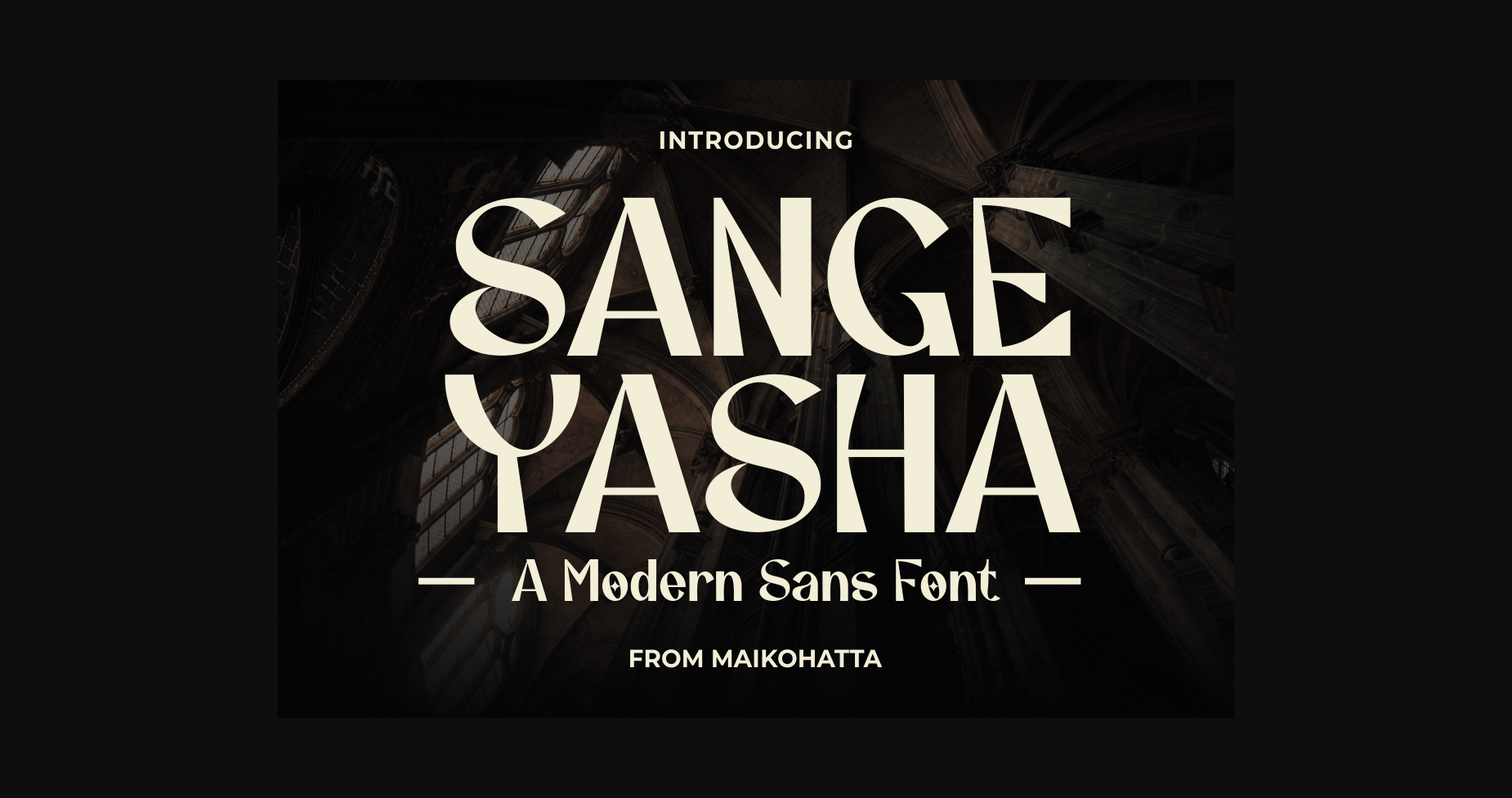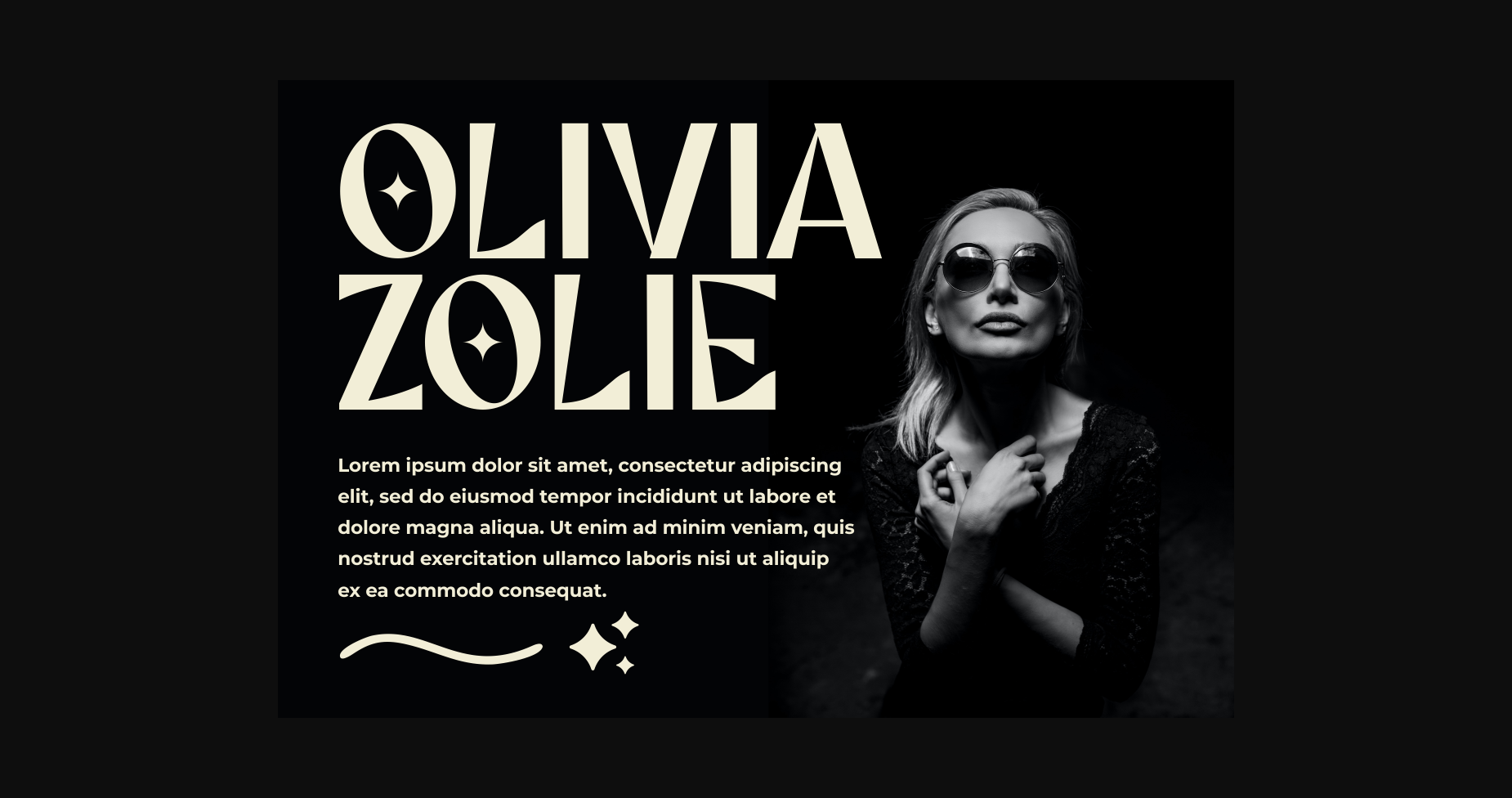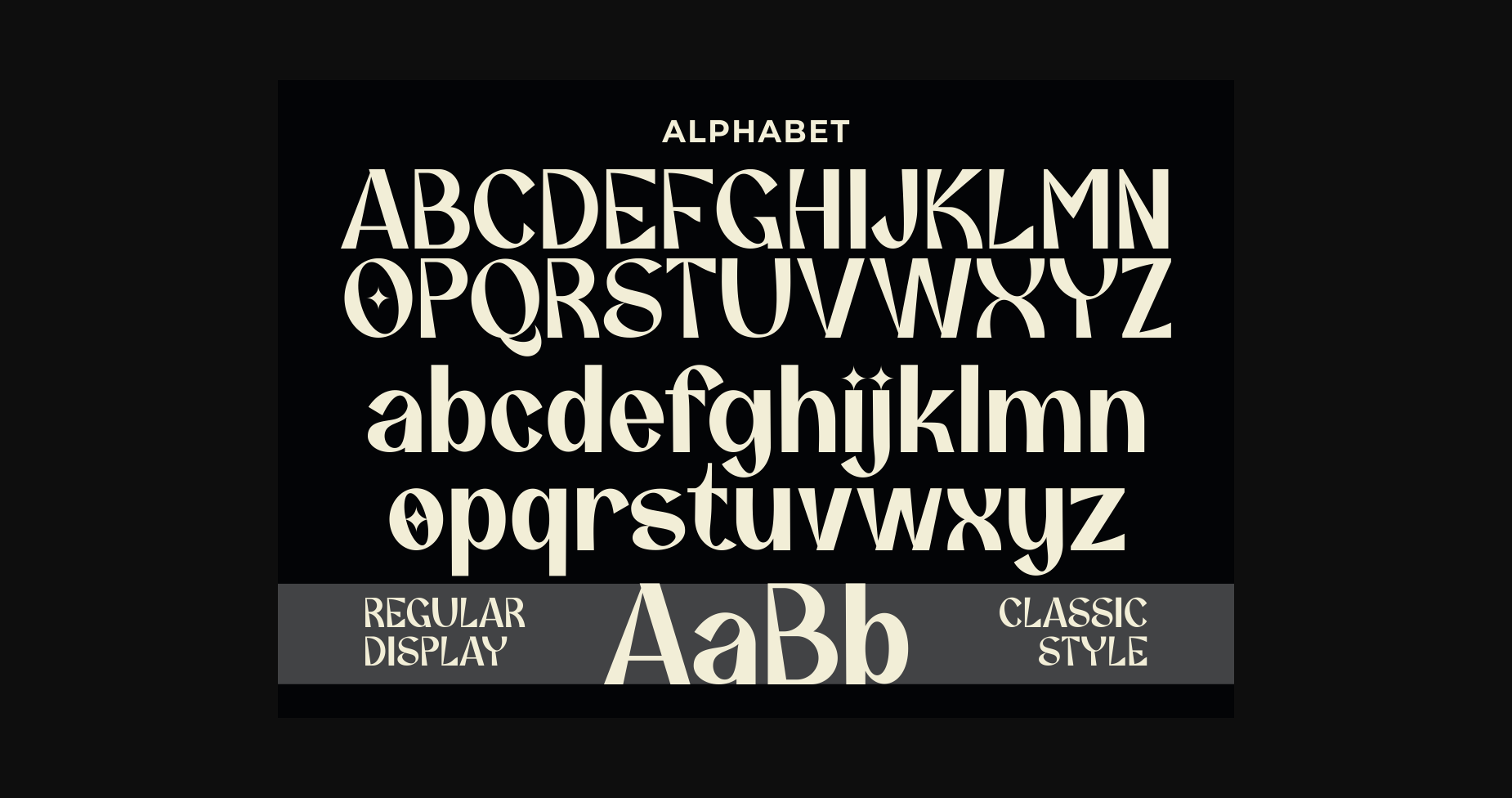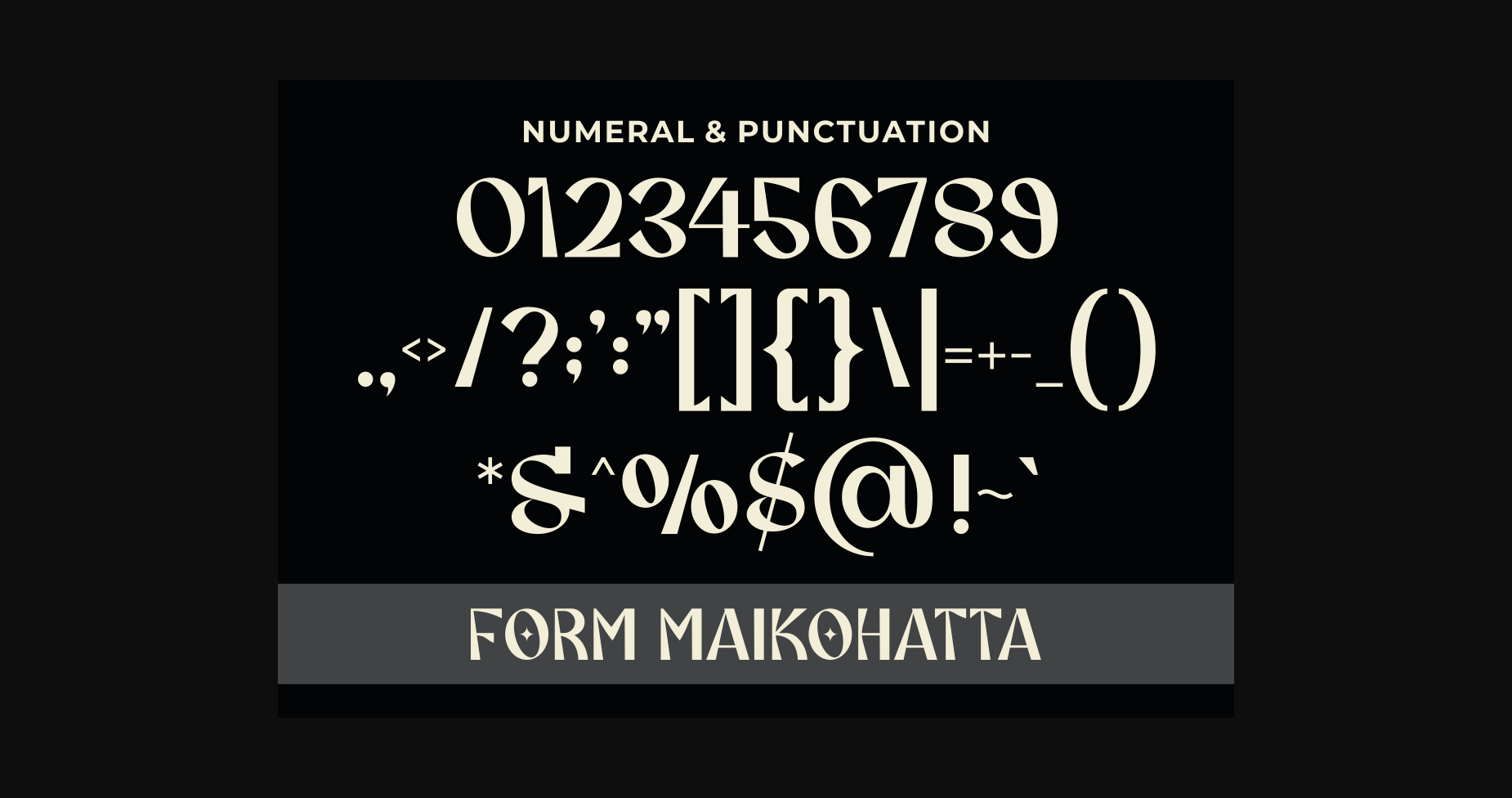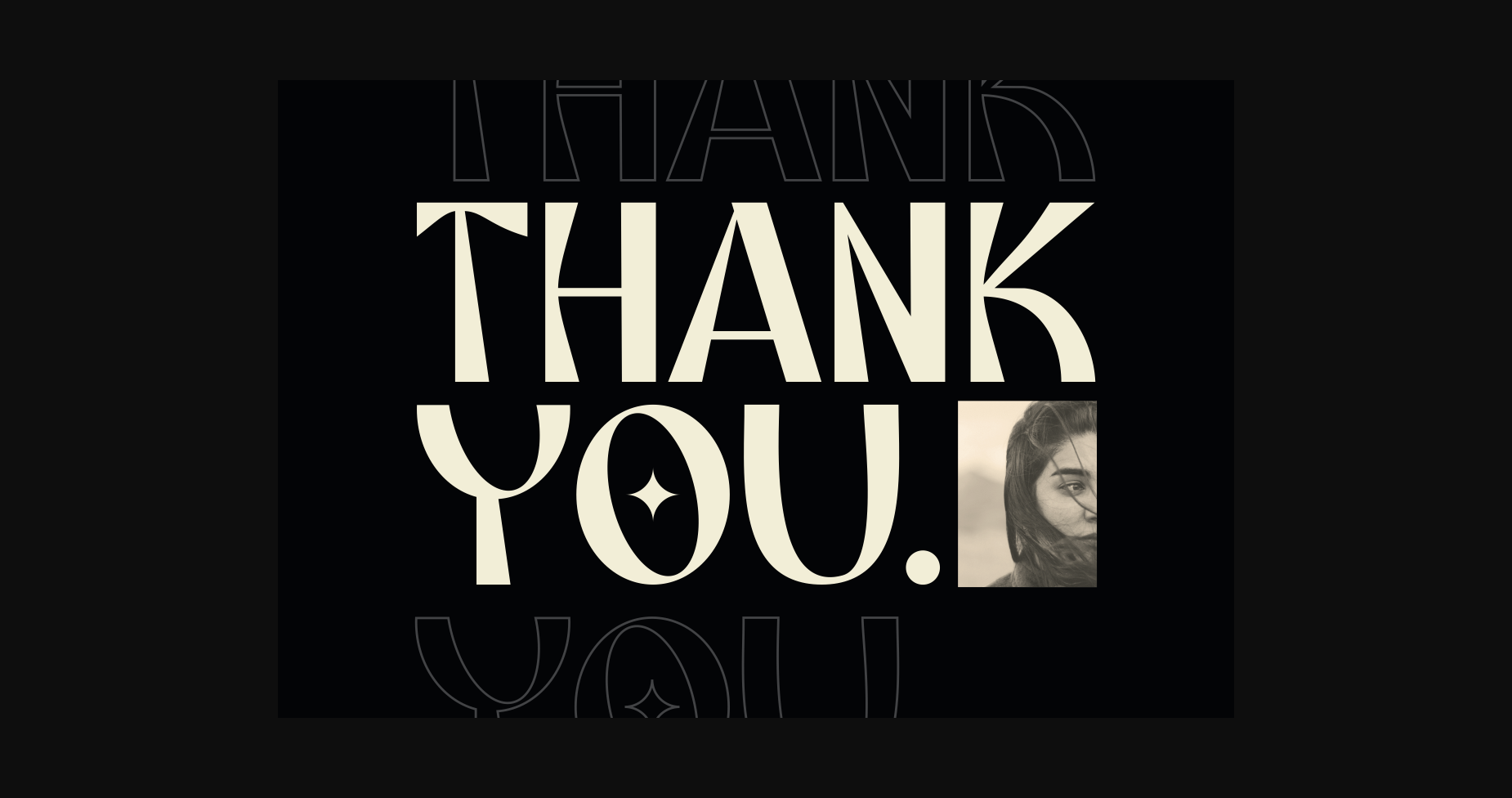
About Sange Yasha Font
Introducing our new product **SANGE YASHA Font** – Modern Font
**SANGE YASHA Font** – Modern Font is a bold and authentic display font. The font is suitable for any branding project like logo, template design, esport, and many more. outstanding in a wide range of contexts.